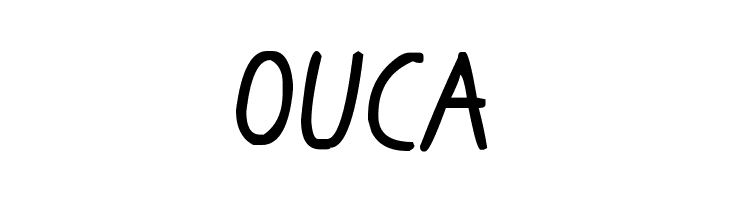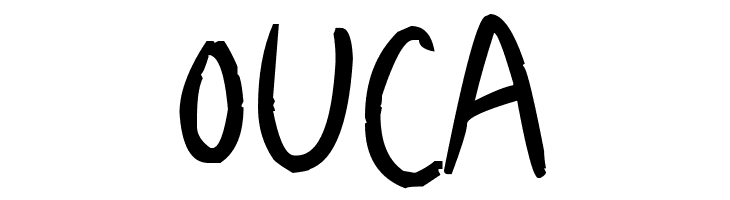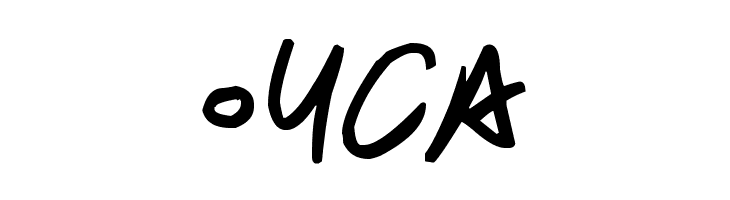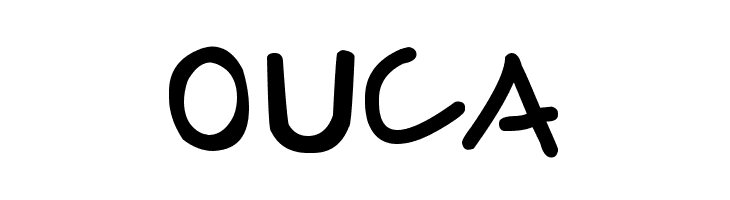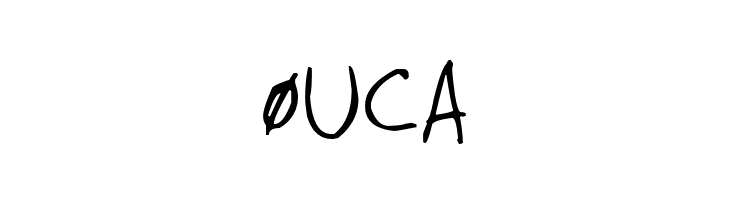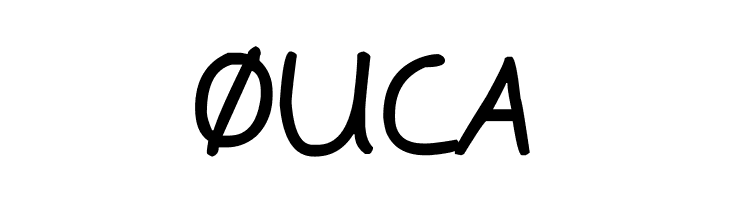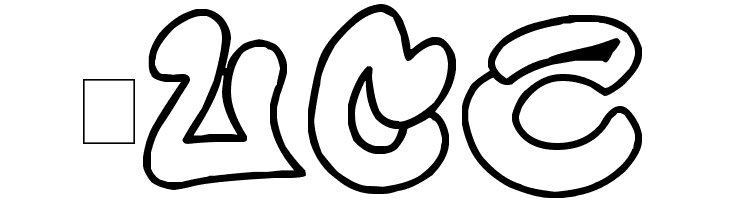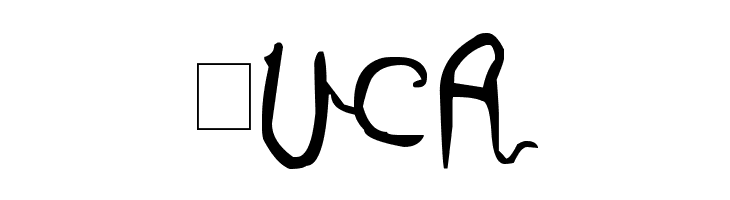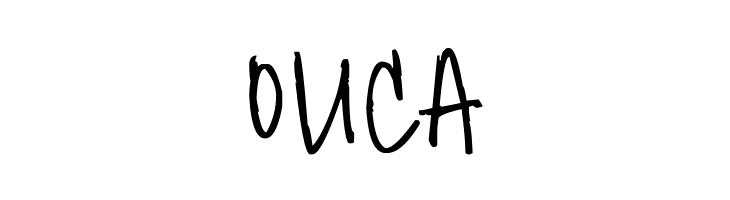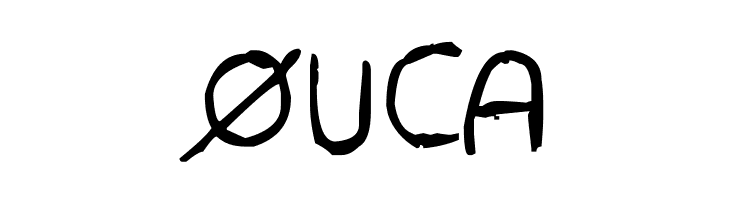
A playful, handwritten font with a casual and dynamic style.
A playful, handwritten font with a casual and organic style.
A lively, handwritten-style font with bold, expressive strokes.
A playful, handwritten font with rounded, uniform strokes.
A casual, handwritten font with a playful and informal style.
A playful, informal handwritten font with rounded, consistent strokes.
A bold, graffiti-inspired font with thick, rounded outlines and a playful urban style.
A whimsical, hand-drawn font with fluid, irregular strokes and artistic flair.
A casual, handwritten font with a playful and informal style.
Casual handwritten font with a playful style.
A playful, handwritten font with dynamic and irregular strokes.